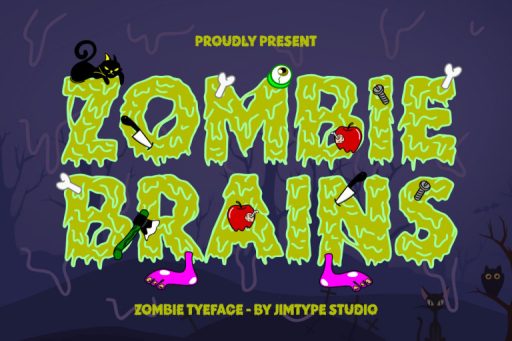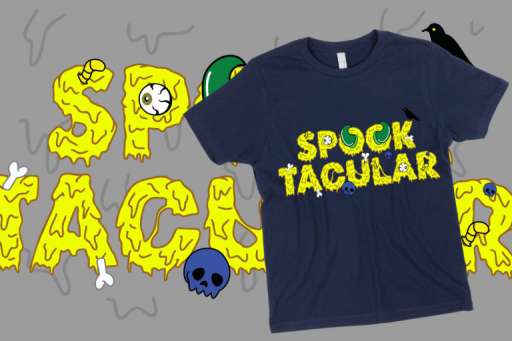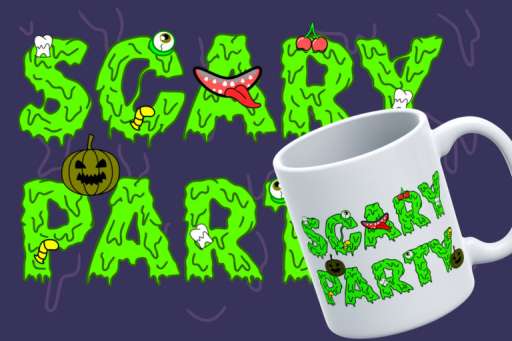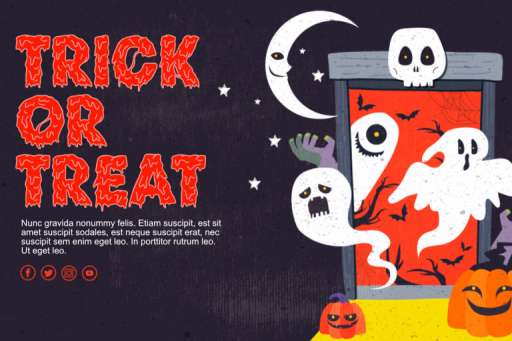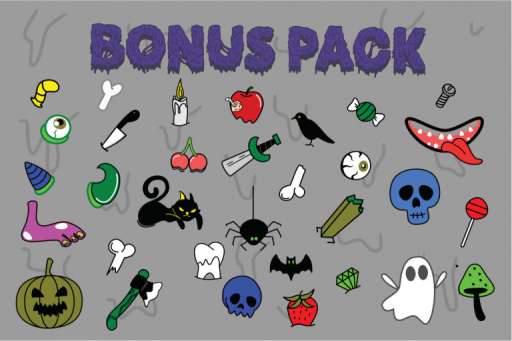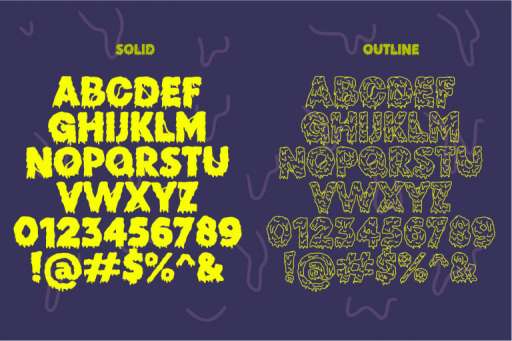
Zombie Brains Font - Halloween Font From Jimtype Studio
Zombie Brains Solid
Zombie Brains Outline
Zombie Brains – Zombie Typeface
Zombie Brains is a dripping and melting font for the Halloween theme concept, best for your looking horror design it is also good for your design elements as well.
Zombie Brains font includes two styles of typeface solid and outline! And to complete the horror design, we bring you a bonus of the vector you can apply to any of your creepy creations for Halloween day!